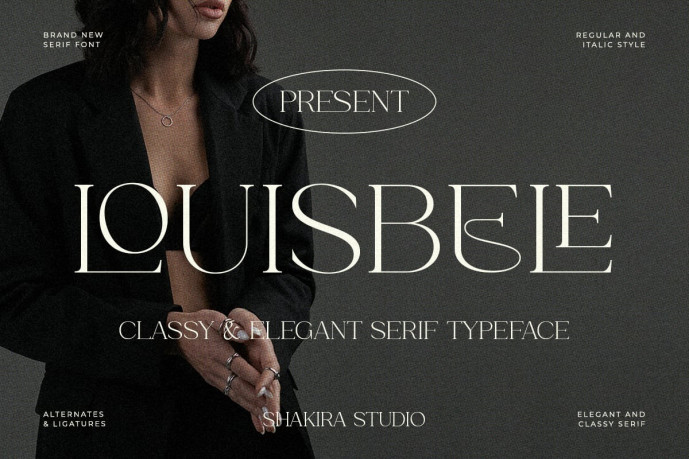
Louisbele Font
Designer: IdhhamCholid
Louisbele Font is a classy and elegant serif typeface designed for refined branding and editorial layouts. With its high-contrast strokes and balanced proportions, Louisbele brings sophistication and timeless appeal to fashion brands, luxury packaging, magazine covers, and modern identity design. Perfect for designers seeking elegance, clarity, and premium visual presence.